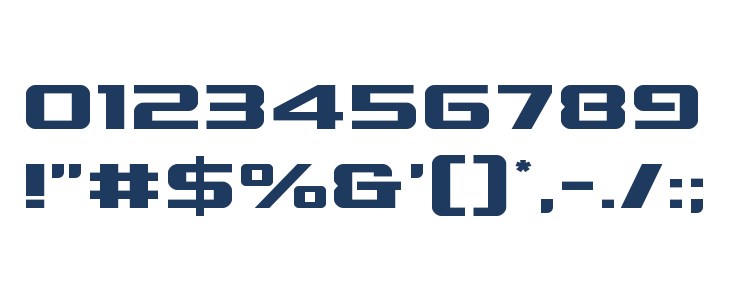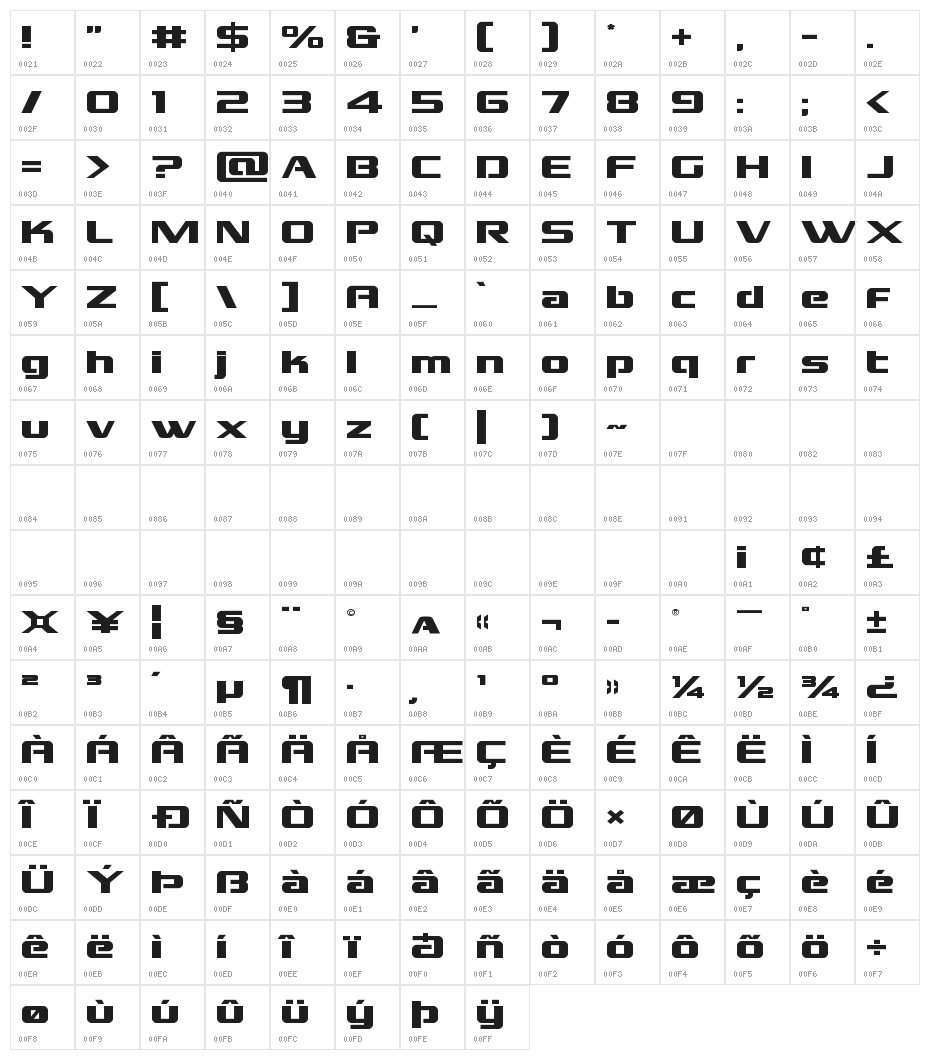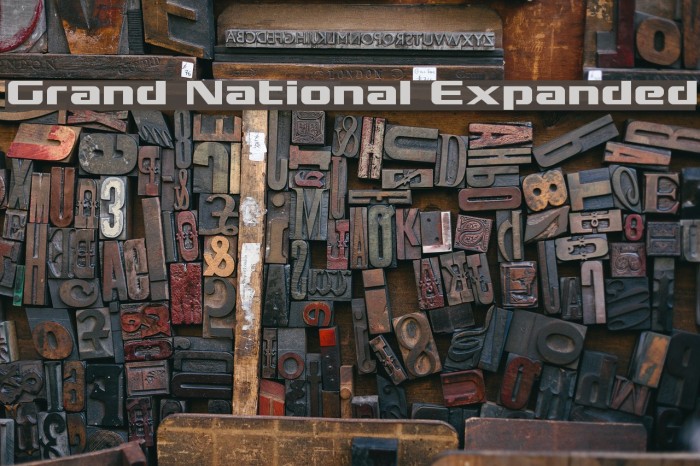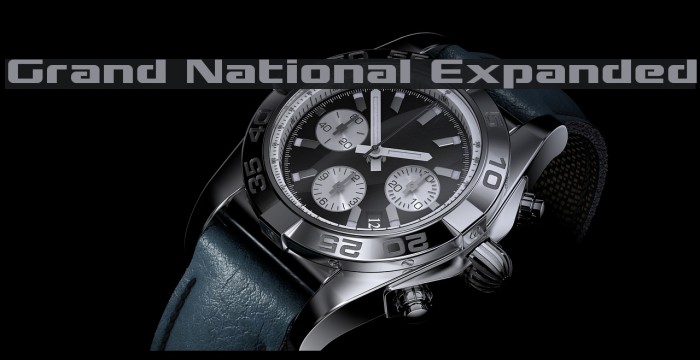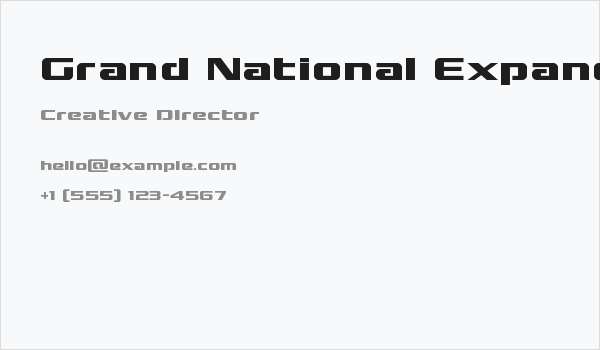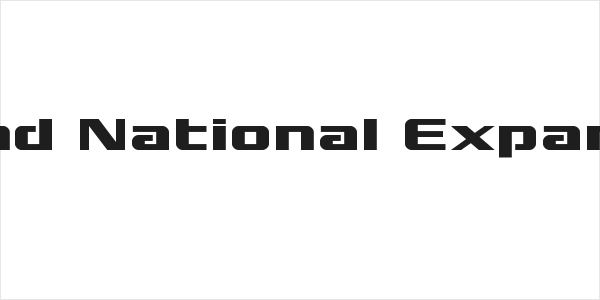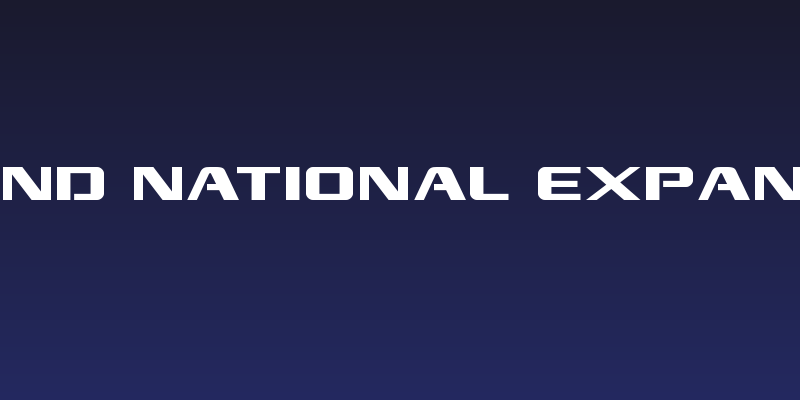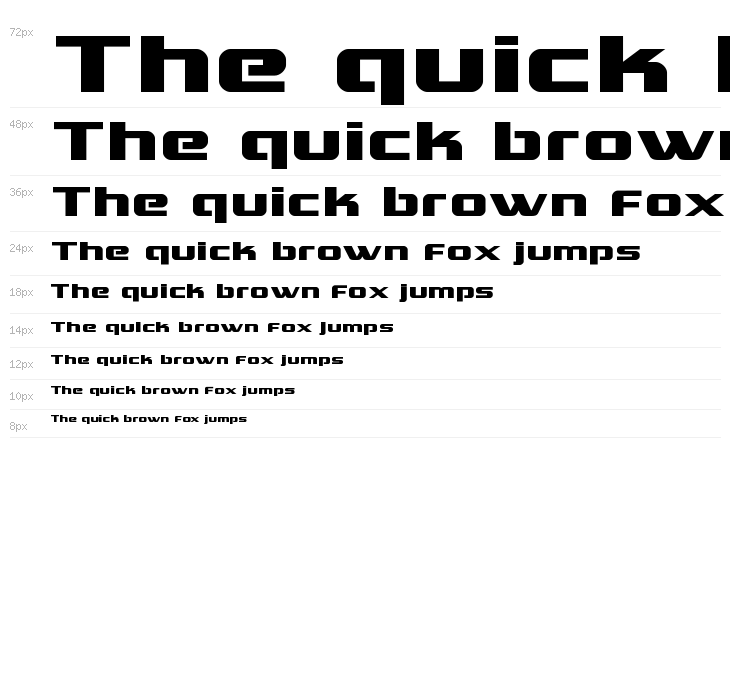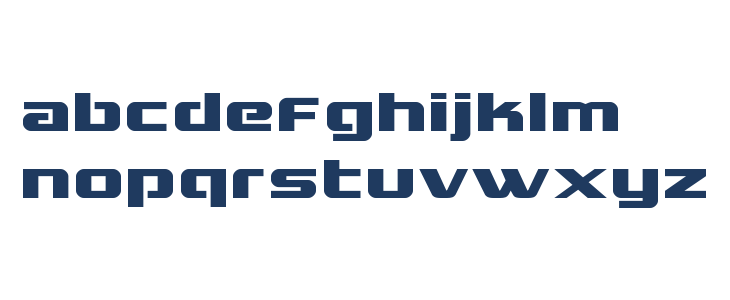
Grand National Expanded Font
Grand National Expanded Description
This font features a bold and striking design with a distinctly modern and geometric aesthetic. The characters are wide and expanded, giving a sense of strength and stability. The uppercase letters are particularly prominent, with sharp angles and clean lines that convey a sense of authority and confidence. The lowercase letters maintain the same geometric style, ensuring consistency across the typeface. Numbers and special characters are designed to match the boldness and clarity of the alphabet, making this font highly versatile for various applications. The overall look is both futuristic and functional, making it suitable for projects that require a strong visual impact.